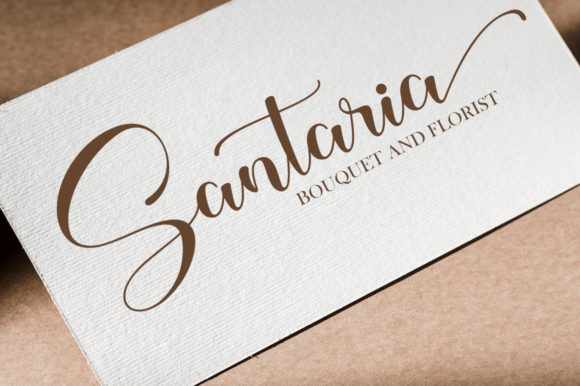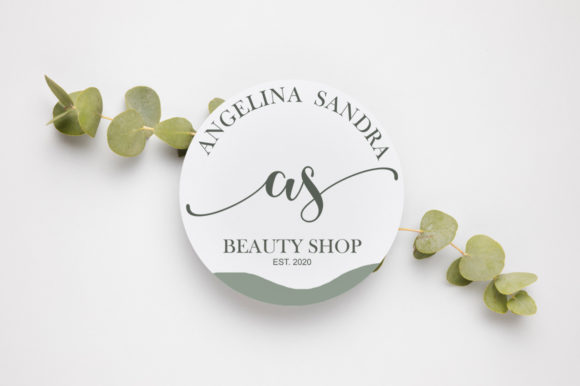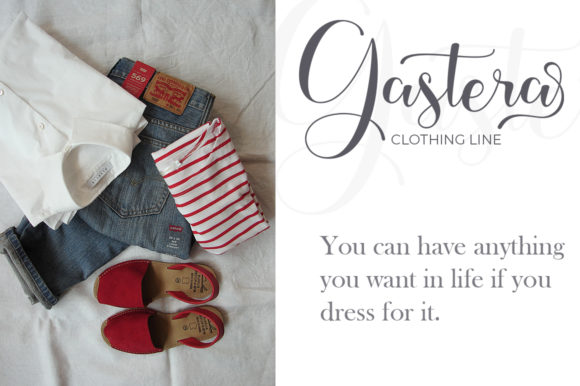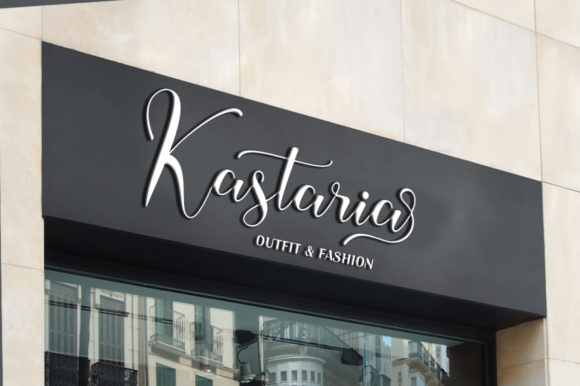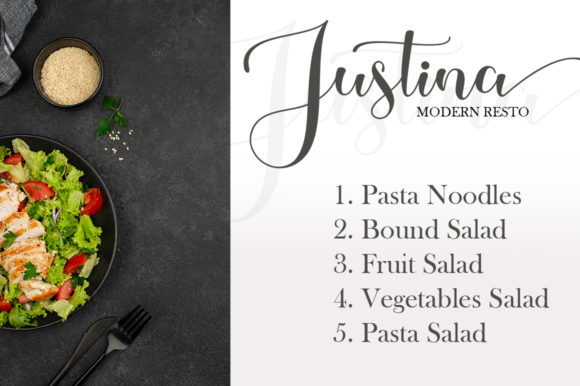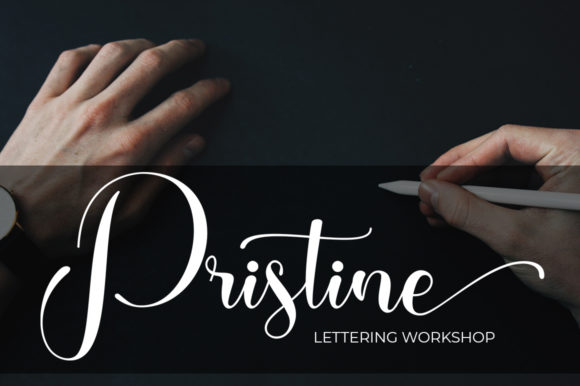
Pastela Font
About Pastela Font
Pastela is a modern and stylish script font. It has beautiful swashes and it’s perfect for logos, wedding invitations, branding and much more. This font is PUA encoded which means you can access all of the glyphs and swashes with ease!